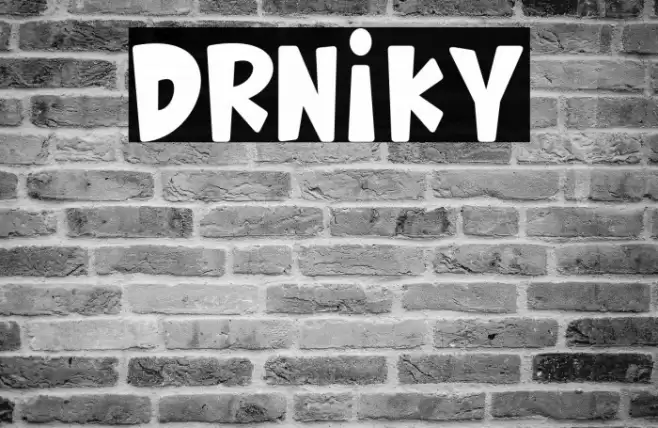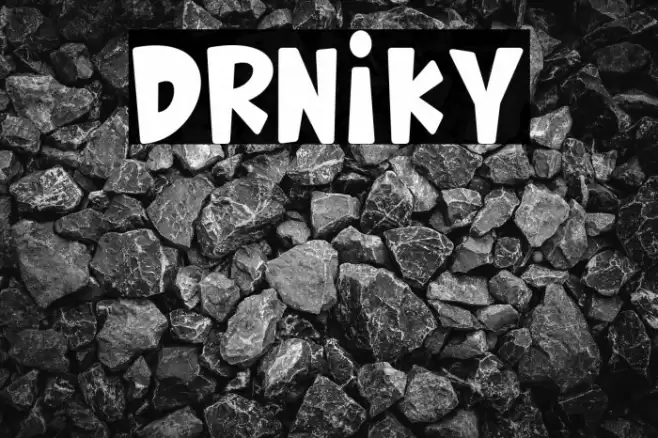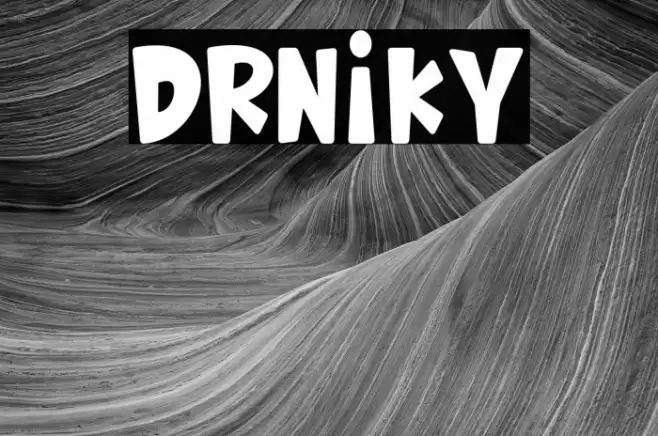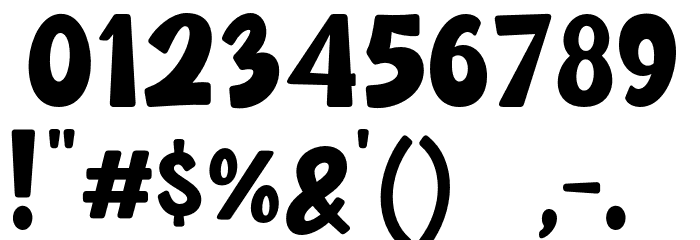
DRNIKY Font
DRNIKY Description
This font features a bold and playful style with a hand-drawn appearance. The characters are thick and rounded, giving a friendly and approachable feel. The uppercase and lowercase letters maintain a consistent weight, creating a cohesive look. The numbers and special characters are designed with the same playful aesthetic, making them suitable for various creative applications. The font's boldness ensures high readability, while its unique style adds a touch of fun and creativity to any project.
A bold, playful font with a hand-drawn, rounded style from Uncategorized fonts.
- Proposed Projects: Ideal for children's books, playful branding, posters, and creative invitations.
- Overall Style: Playful, Creative